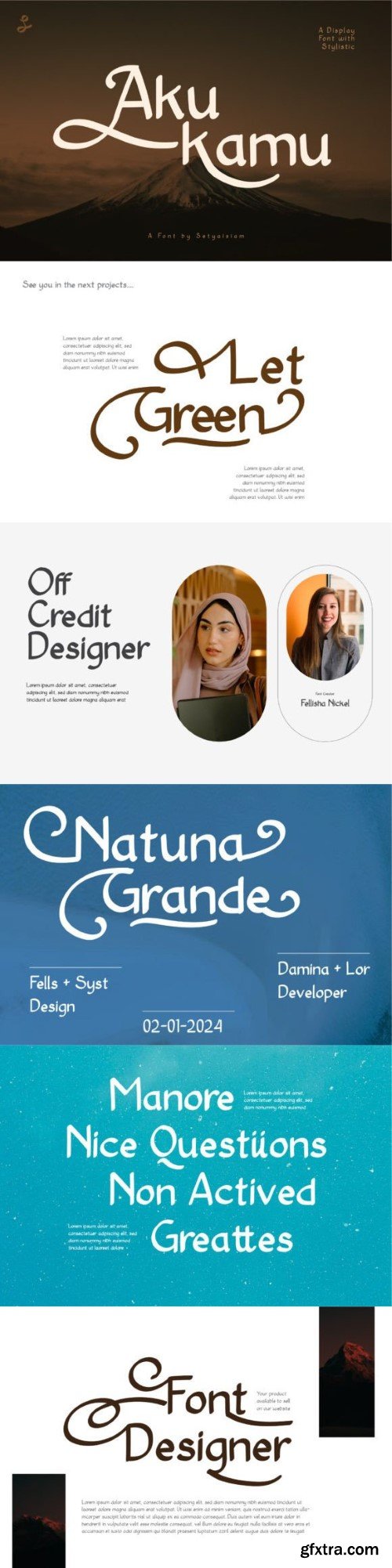
阿克库姆字体
Akukamu is a fun and quirky handwritten font. Whether you use it for cartoon-related designs, children's games, or just any creation that requires a lovely touch, this font will be an amazing choice.